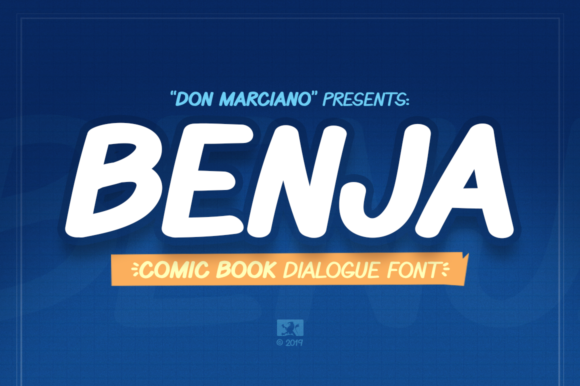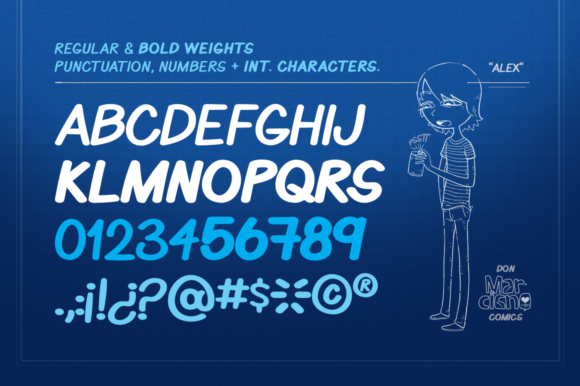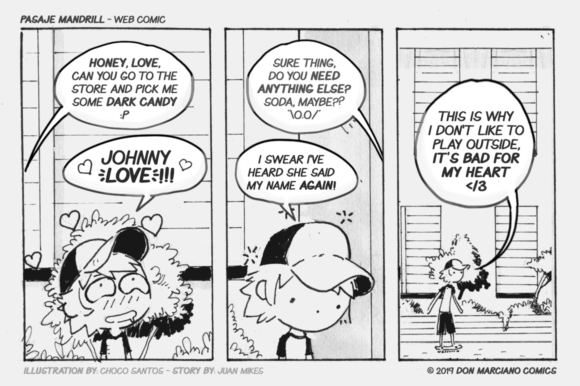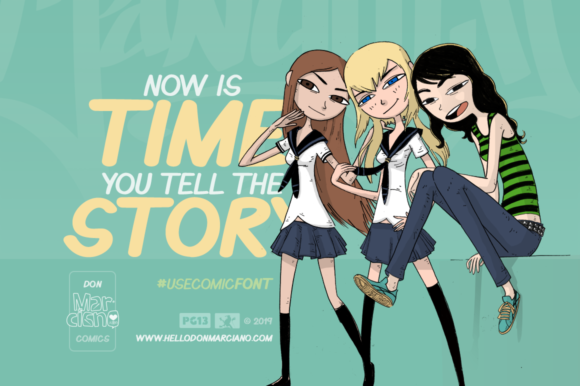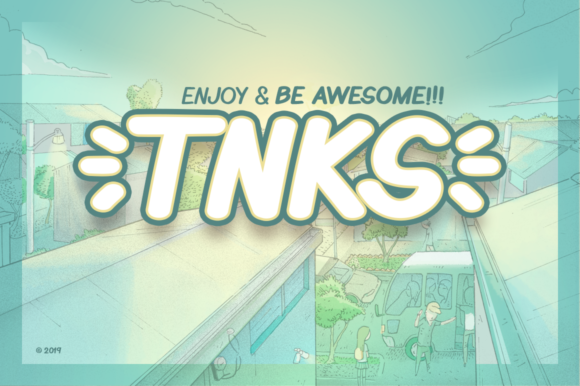
Benja Font
About Benja Font
The Benja is a comic book dialogue font, designed for the web comic series “Pasaje Mandrill”. It comes in a regular and bold version and will add a striking look to your designs.